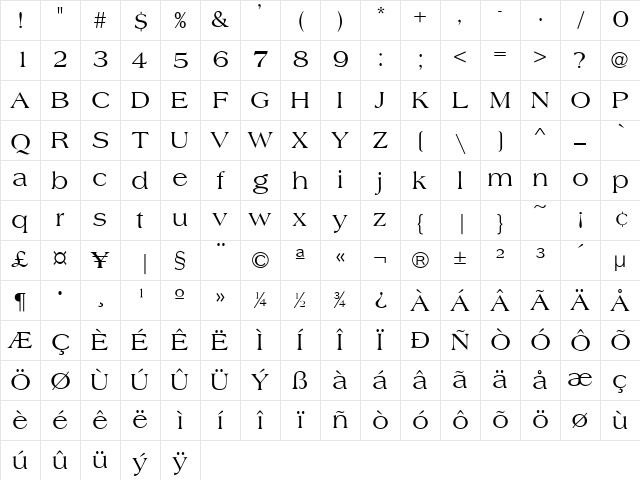
Amherst Regular
Amherst Family
Amherst Regular
Design Context for Amherst
Amherst is a composed and adaptable typeface that performs quietly and consistently across a wide range of design contexts.